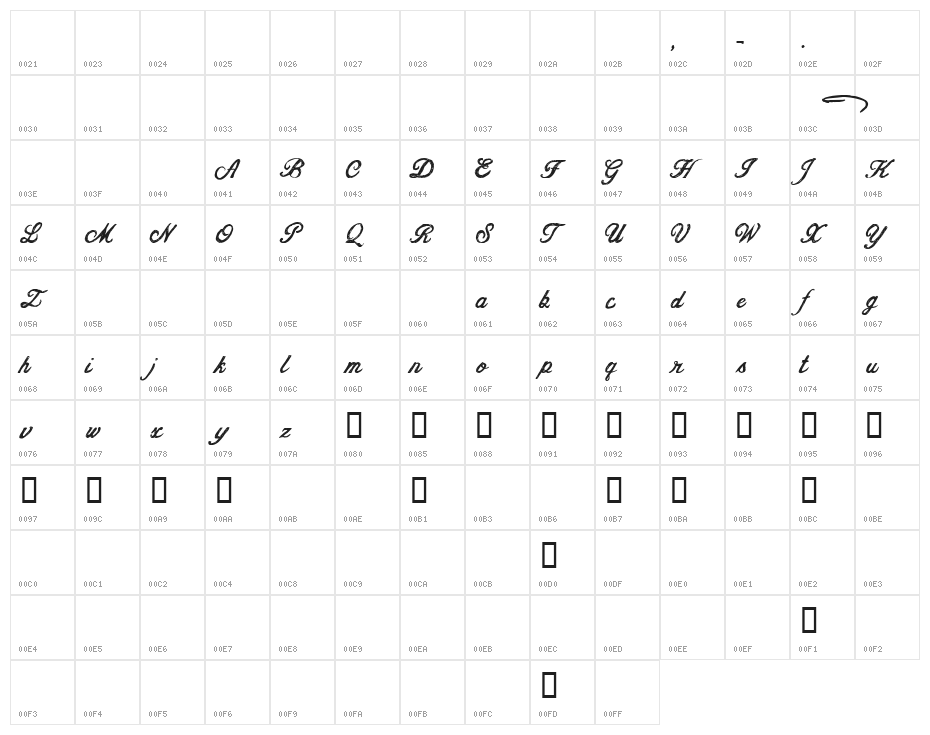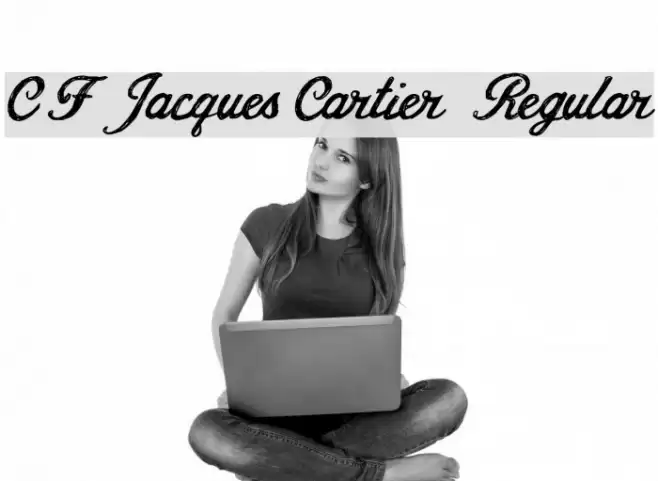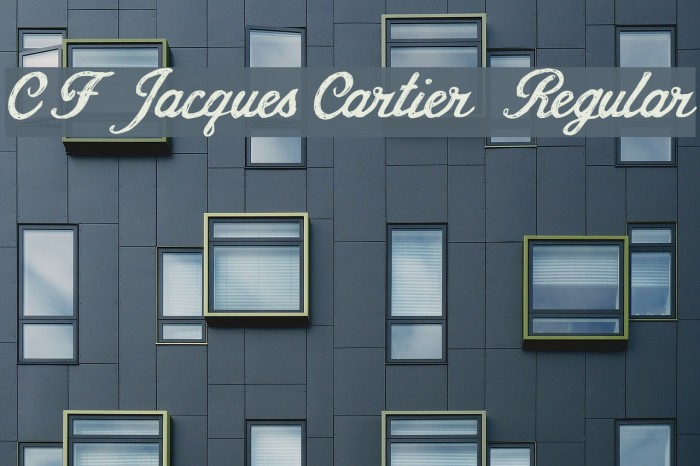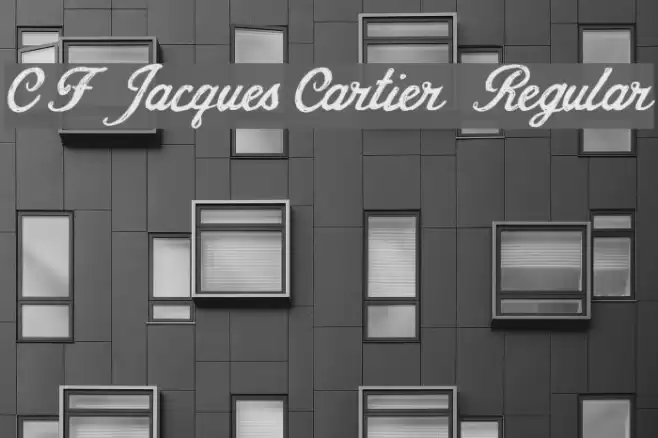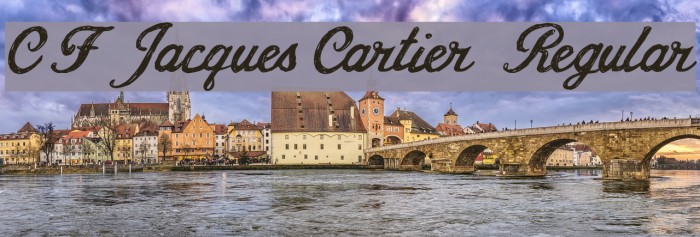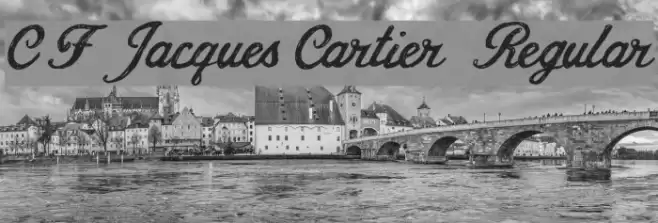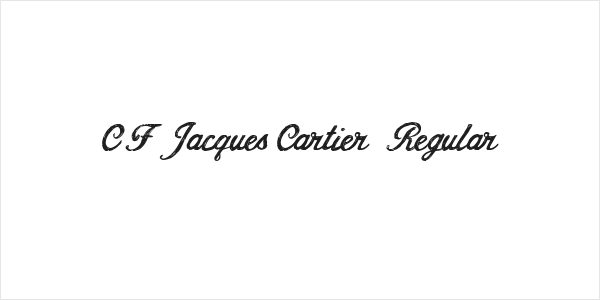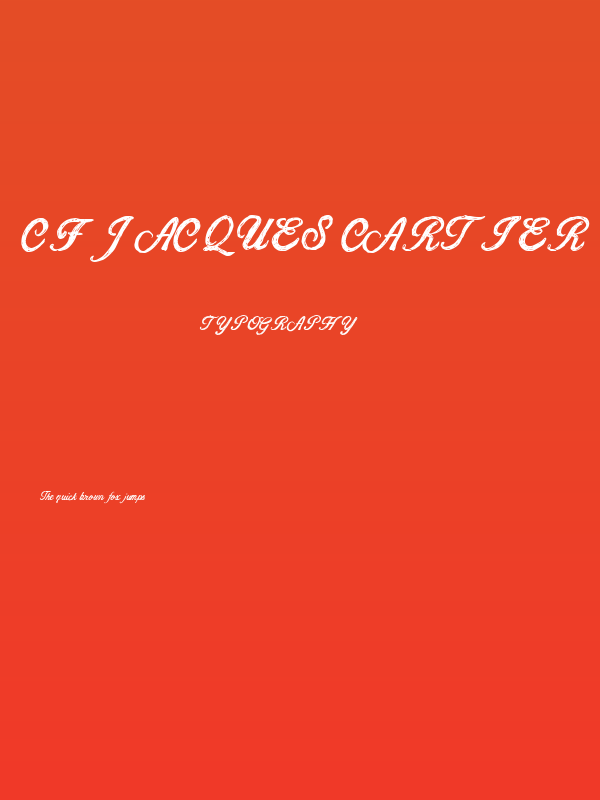
CF Jacques Cartier Regular Font
CF Jacques Cartier Regular Description
This font exhibits a classic, elegant script style with a flowing, cursive design. The characters are interconnected, creating a seamless and sophisticated appearance. The uppercase letters are ornate, with intricate loops and flourishes, while the lowercase letters maintain a consistent, graceful flow. The font's overall aesthetic is reminiscent of traditional calligraphy, making it suitable for formal and decorative applications. The stroke contrast is medium, providing a balance between readability and artistic flair. The character spacing is normal, ensuring legibility without sacrificing style.
An elegant, flowing script font with medium contrast and classic calligraphic style from Script fonts.
• Proposed Projects: Ideal for wedding invitations, elegant branding, formal event programs, and decorative signage.